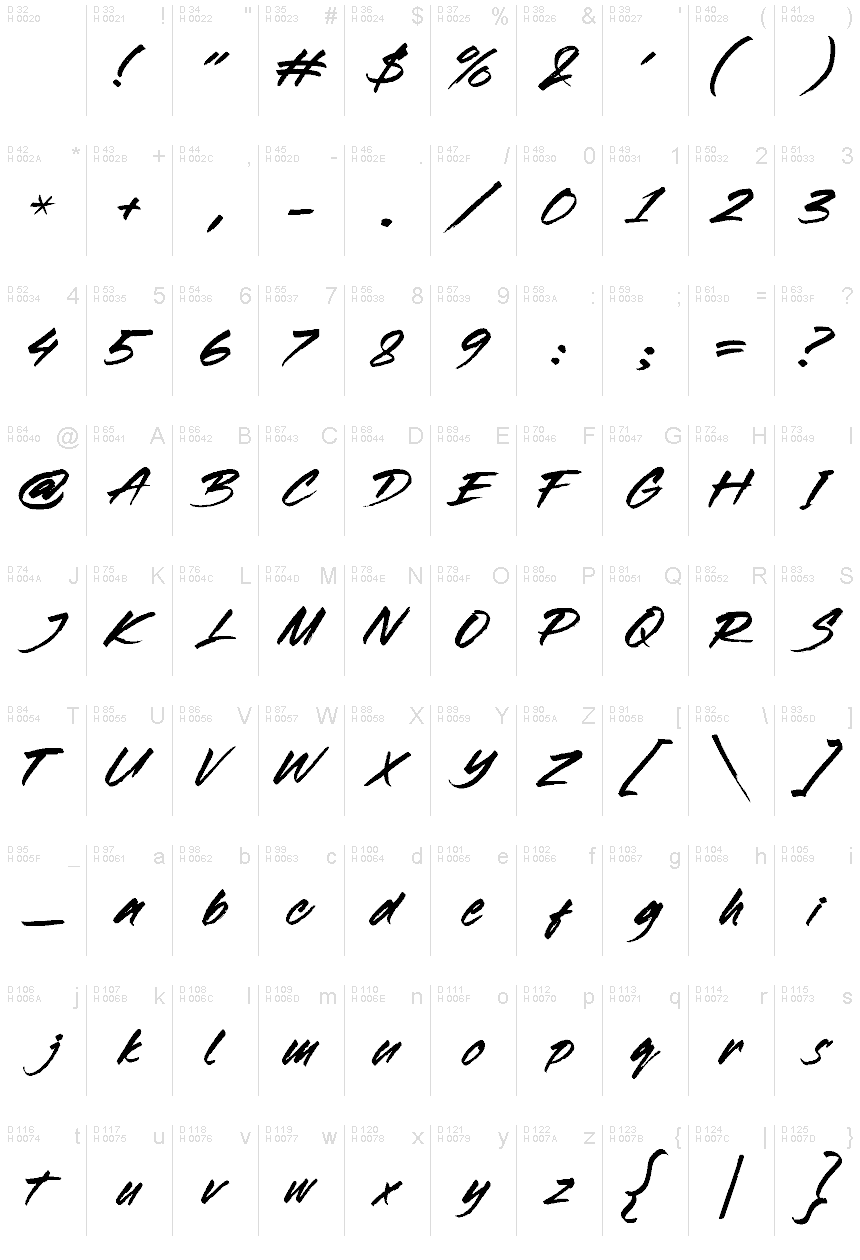
Rushway
Rushway font by Excellent Ritma Florendia is a condensed brush typeface with rebellious strokes and dynamic swashes. This signature script carries an expressive, energetic vibe suitable for both large headlines and smaller paragraphs. The modern brush style offers an artistic flair perfect for making a statement.